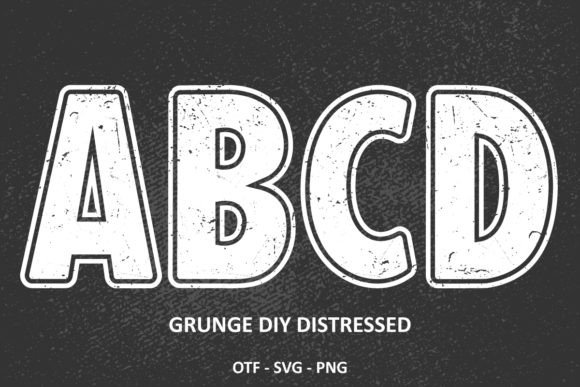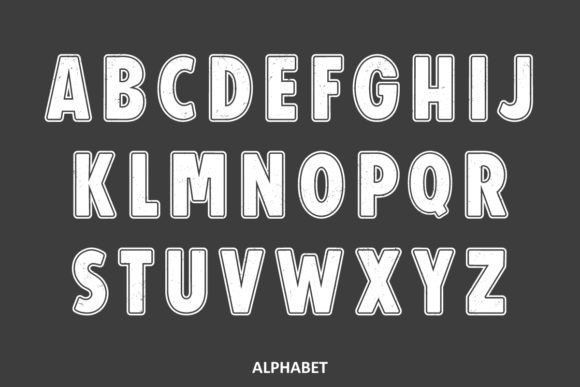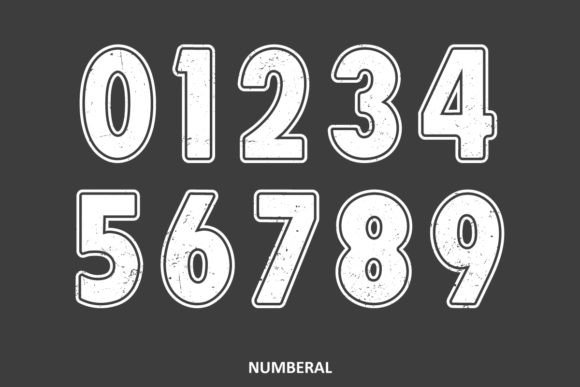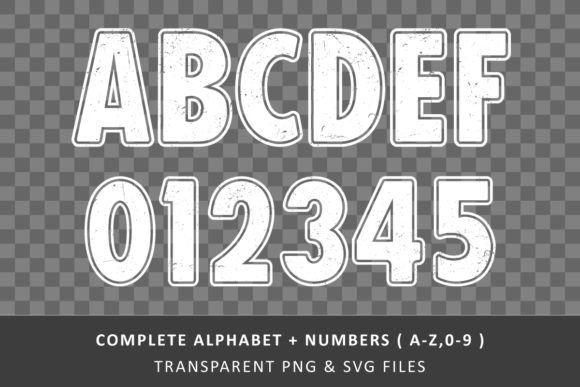
Grunge Diy Distressed Font
Introducing “Grunge DIY Distressed” – a vintage and grunge-distressed display font that will brighten up each of your designs. Perfect for logos, posters, websites, T-shirts and more. Add it confidently to your projects, and you will love the results.